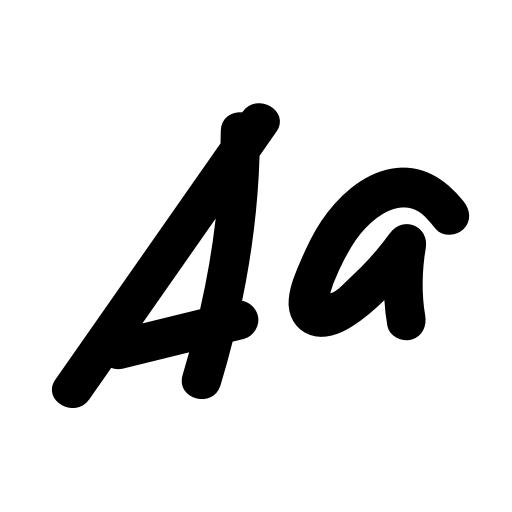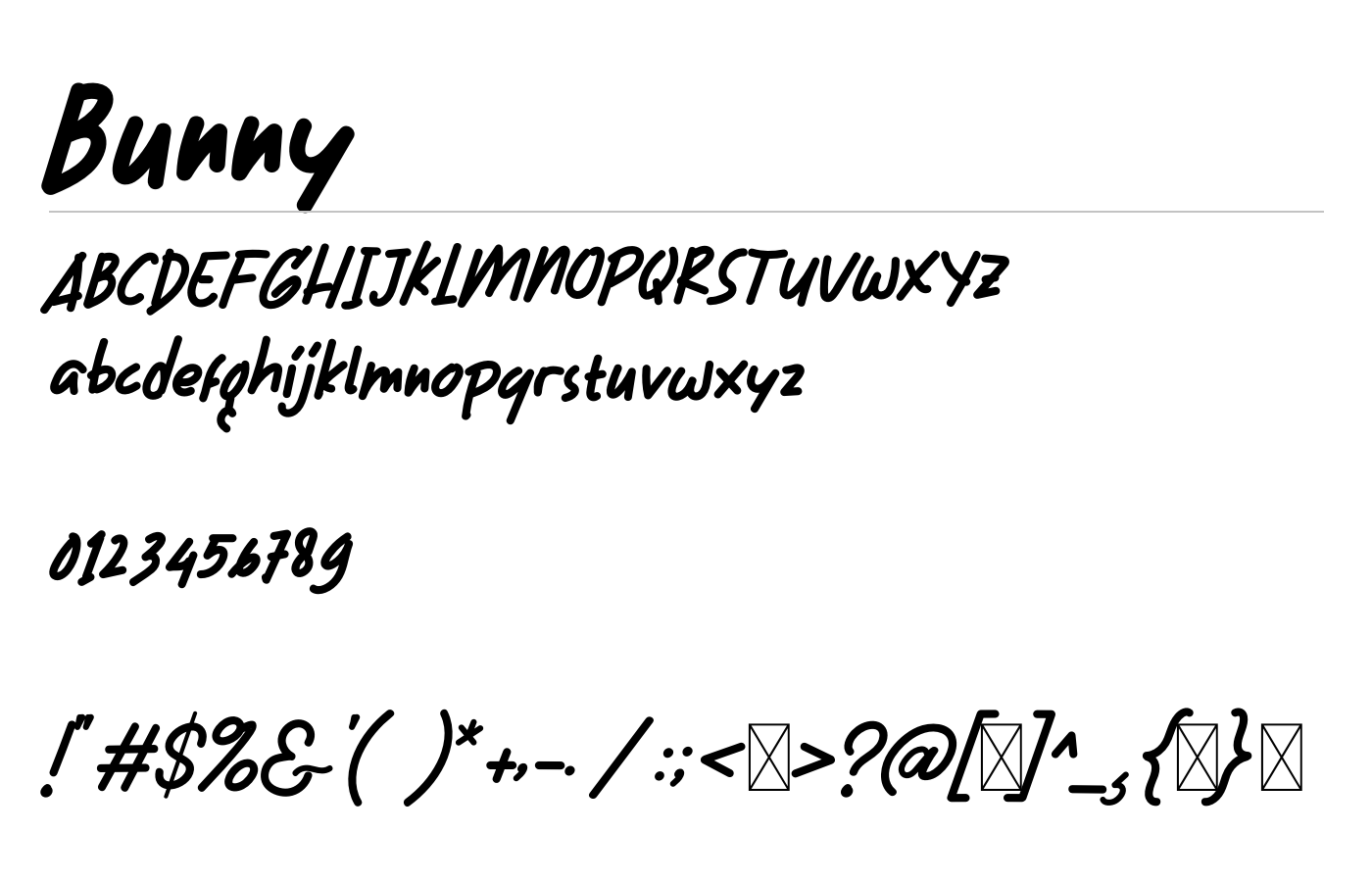
Bunny Font is a lively, casual script typeface with a handwritten feel, characterized by its smooth, slightly slanted strokes and medium weight. It exudes a friendly, energetic personality, making it ideal for playful branding, creative projects, and informal communications where a personal touch is desired. This font works best in logos, headlines, and packaging that aim to convey warmth and approachability.
Bunny Font